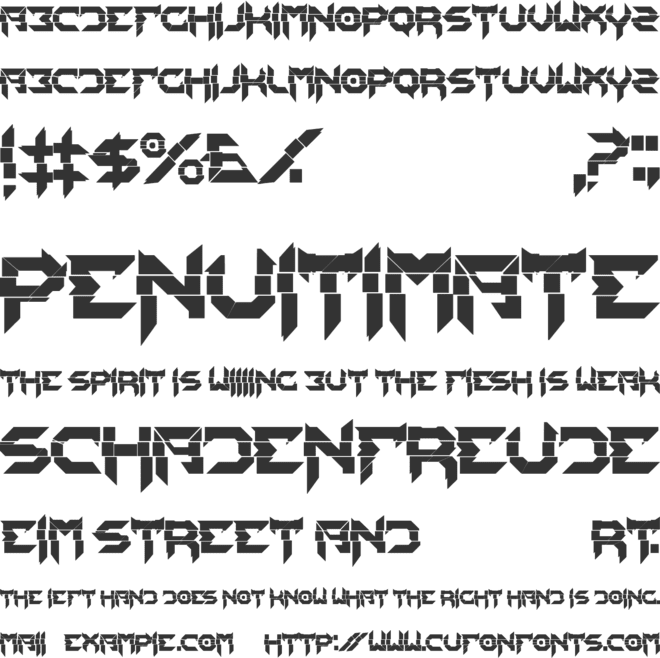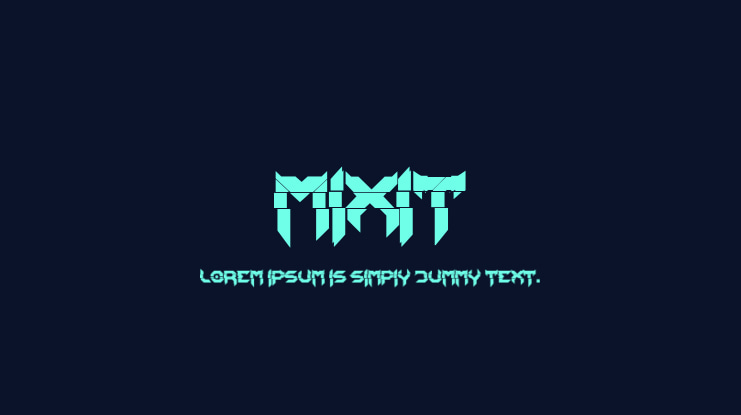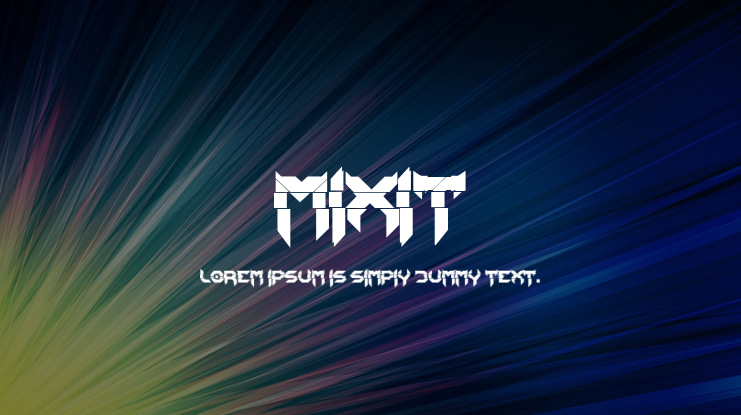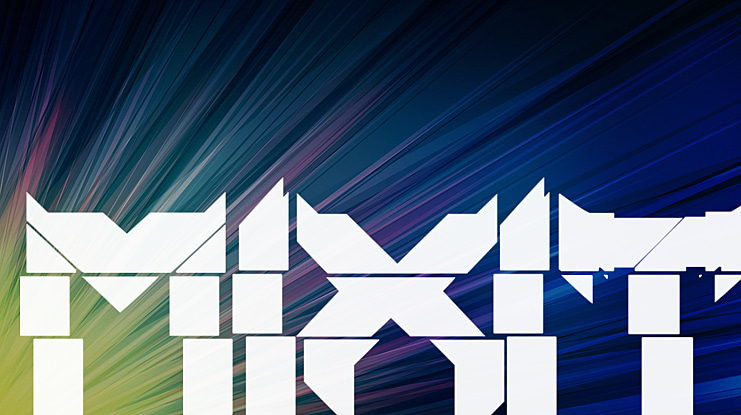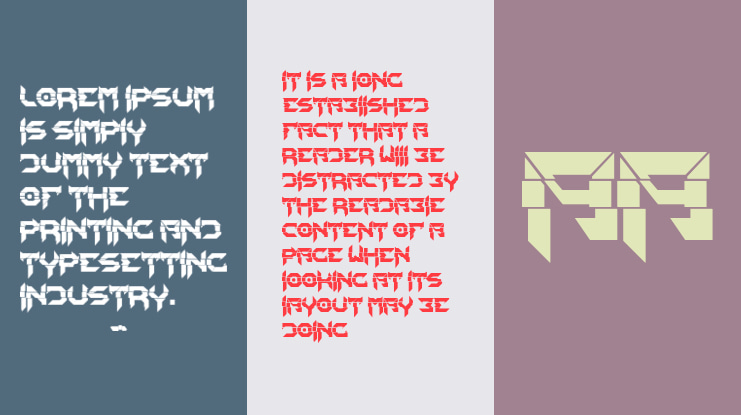
Mixit Font
The font, MIXIT, is designed to be a modern, broken, glitched Sci-fi styled font perfectly suited to electronic music or for Dubstep or Glitch. Its modern Gothic angled characters give a sharp, dangerous look for added aggression. Perfect for stepping on those Dubs!